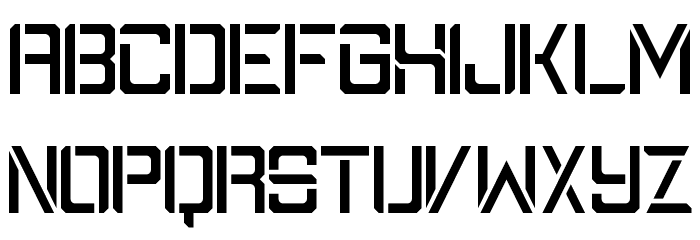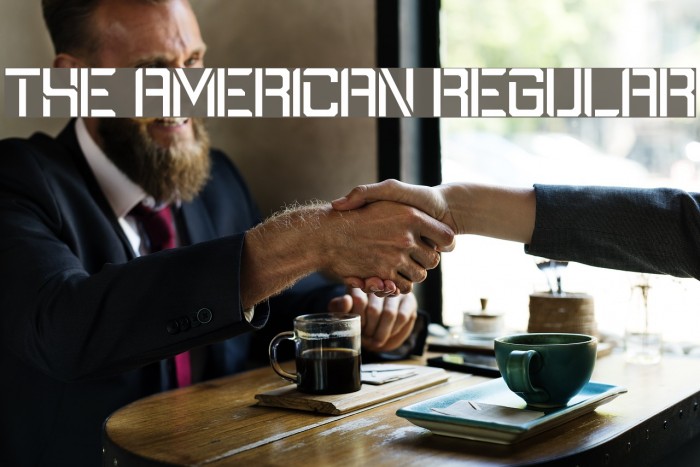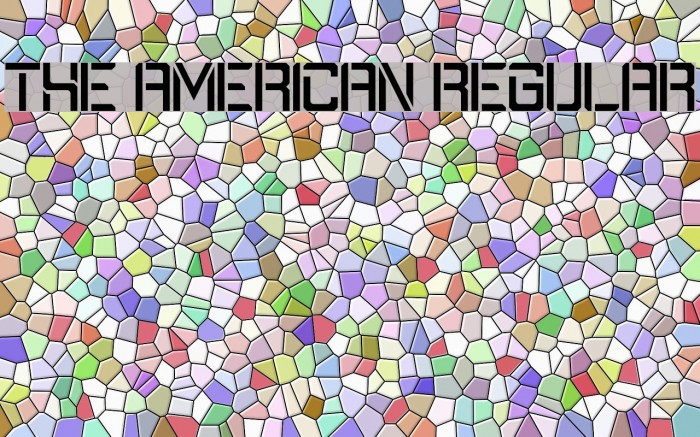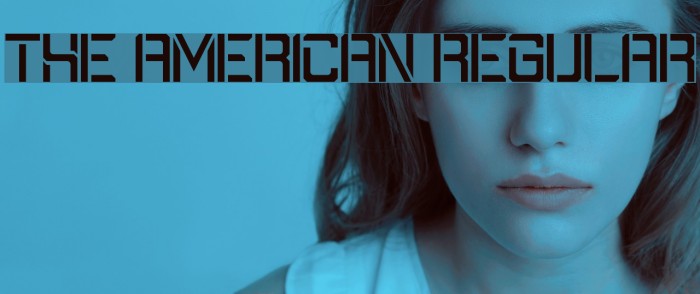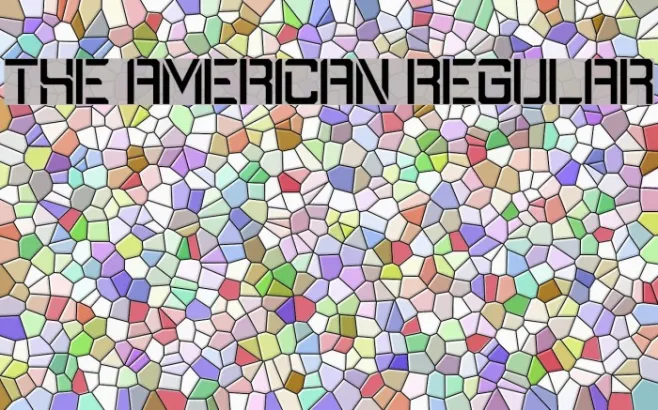
The American Regular Font
This font features a bold, geometric design with a futuristic flair. The characters are constructed with sharp angles and straight lines, giving it a highly structured and modern appearance. The uppercase letters are particularly striking, with a uniform height and width that creates a cohesive look. The lowercase letters maintain the same geometric style, ensuring consistency across the typeface. The numerals and special characters are designed to match the boldness and angularity of the alphabet, making this font ideal for projects that require a strong, impactful visual presence.
A bold, geometric font with a futuristic and structured design.
- Proposed Projects: Ideal for technology branding, sci-fi themed designs, posters, and modern logos.